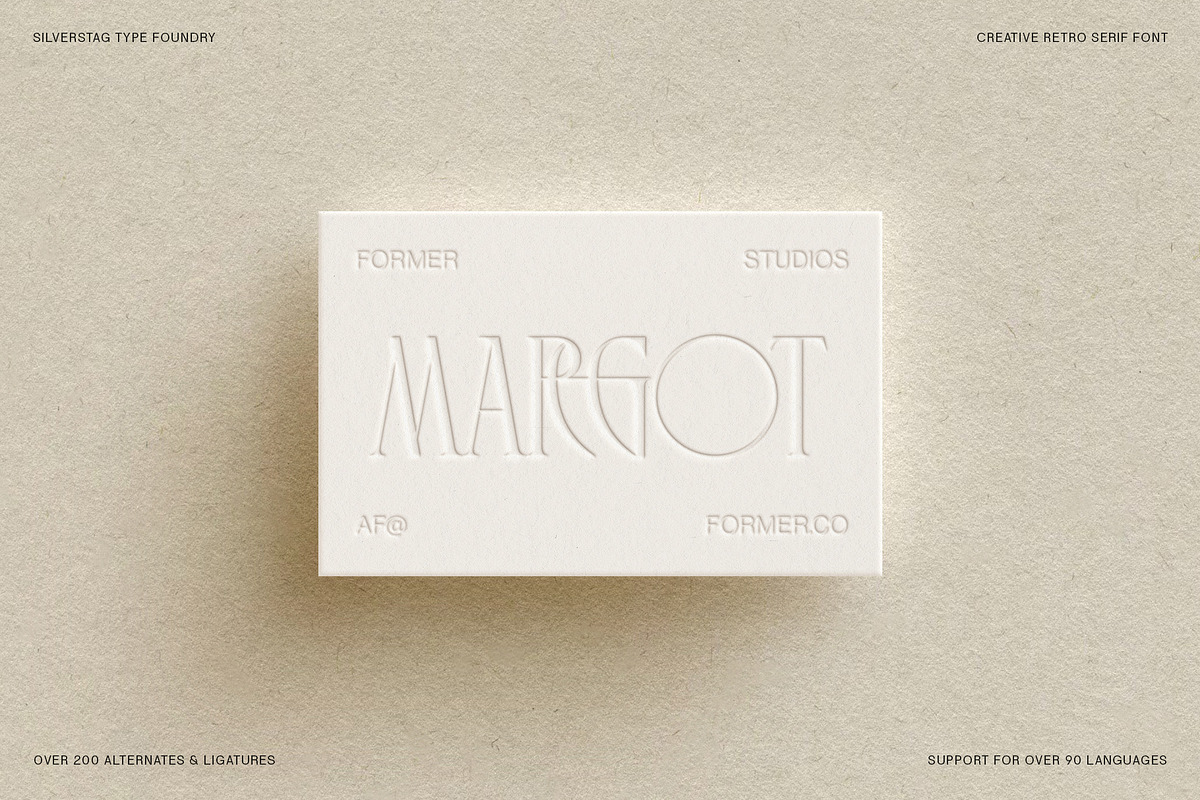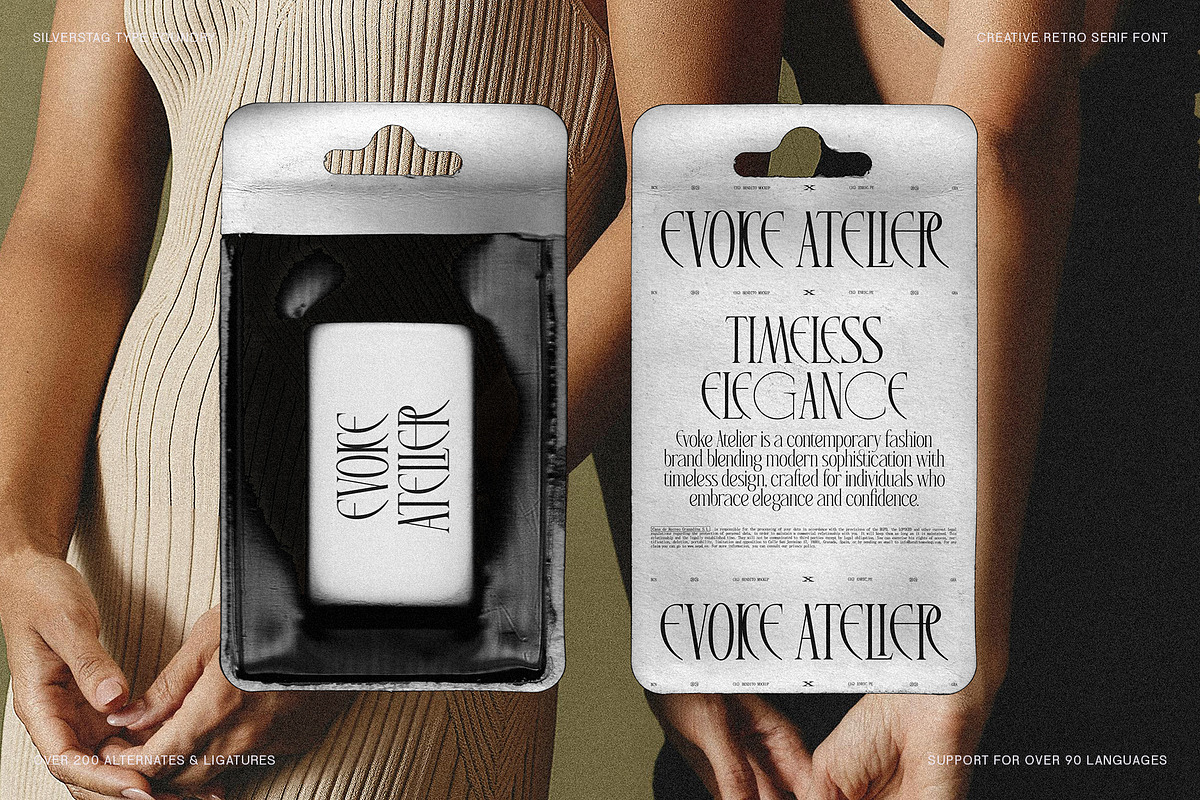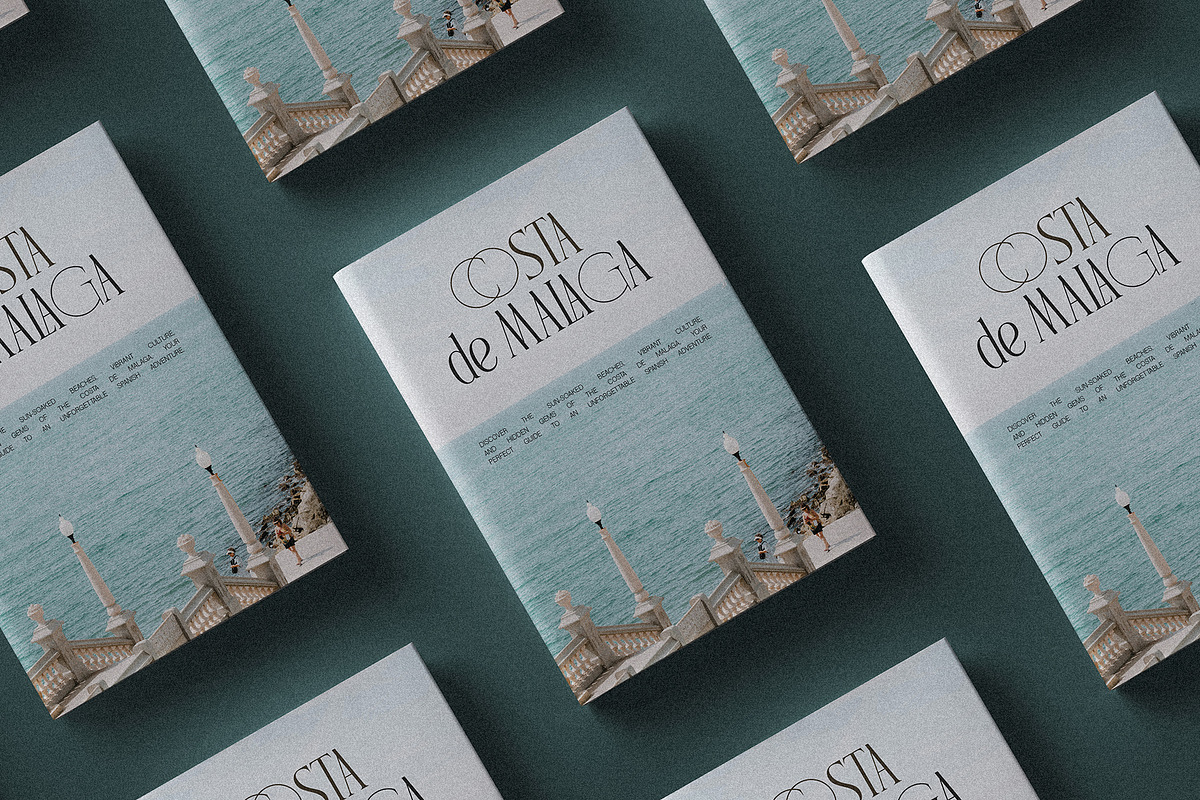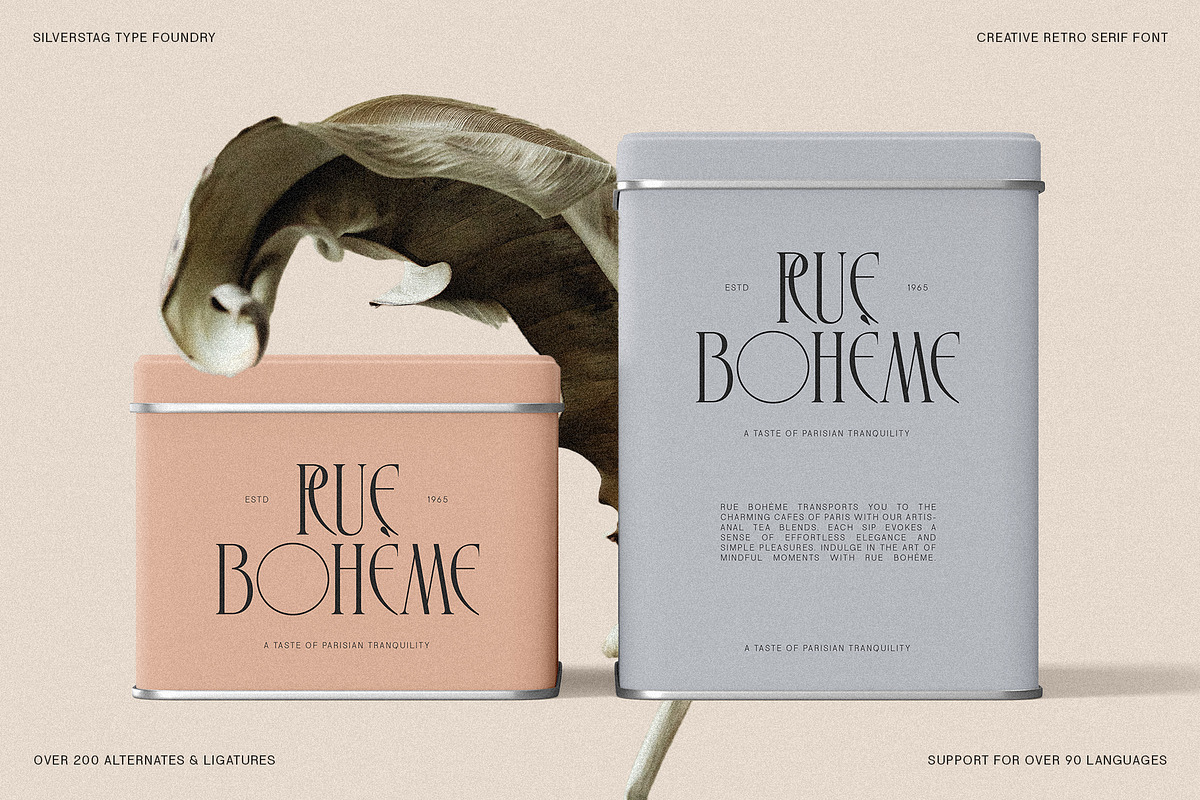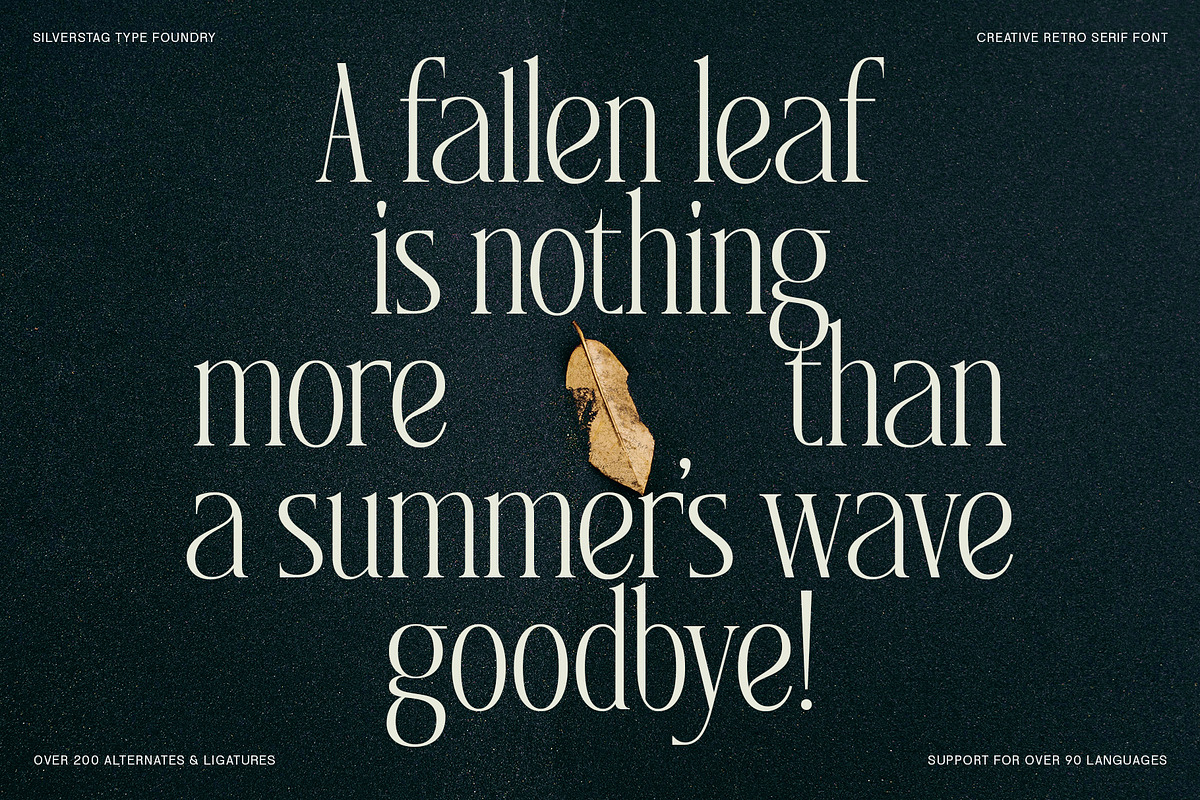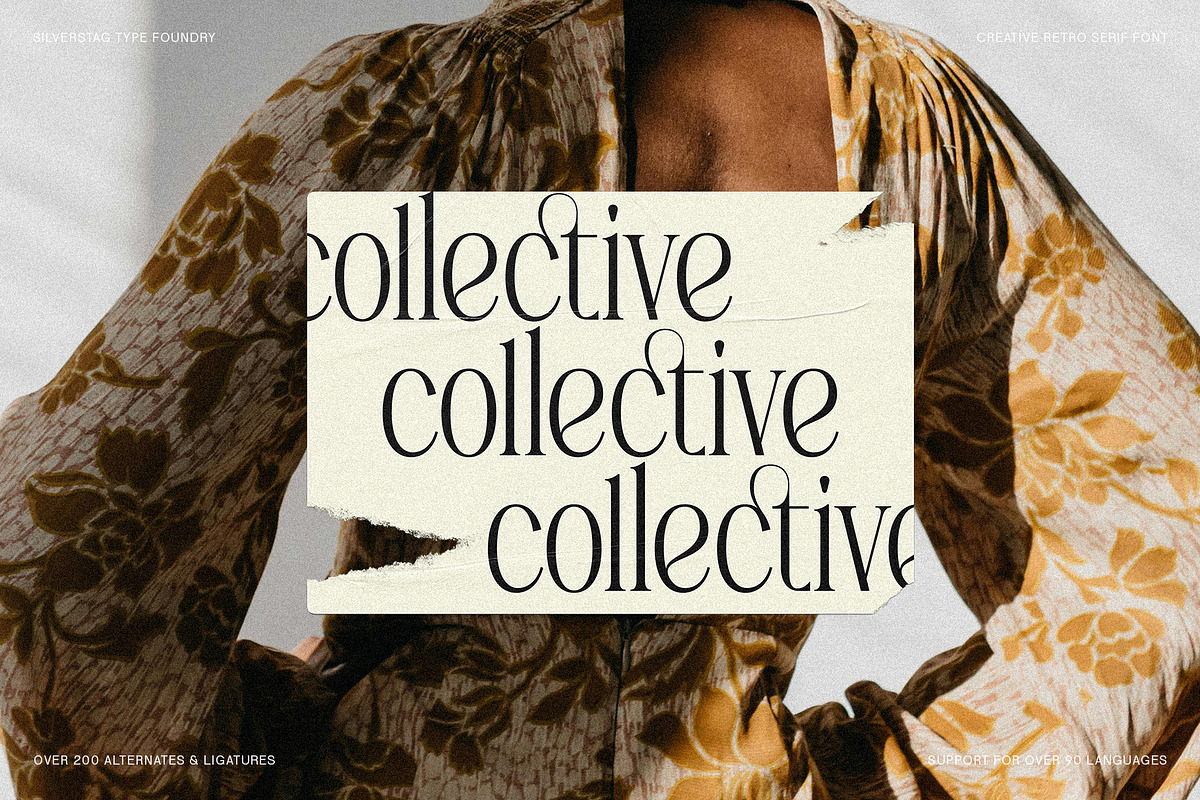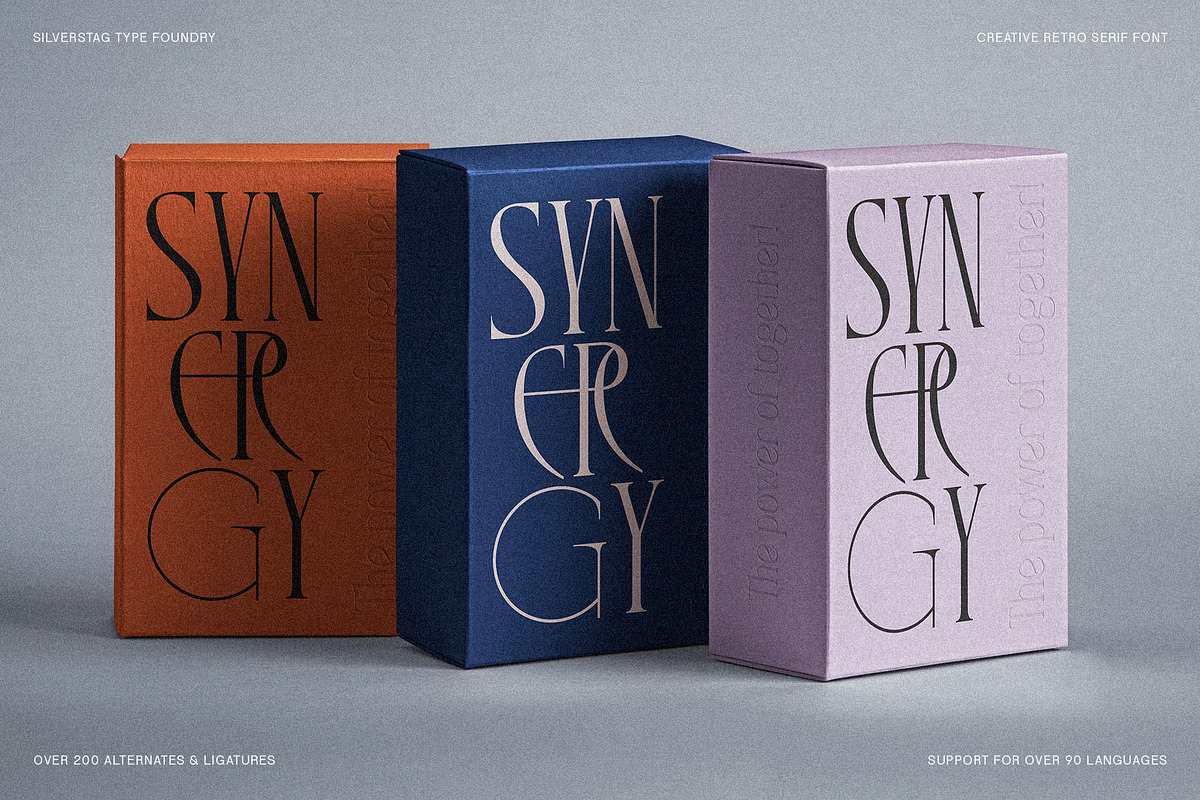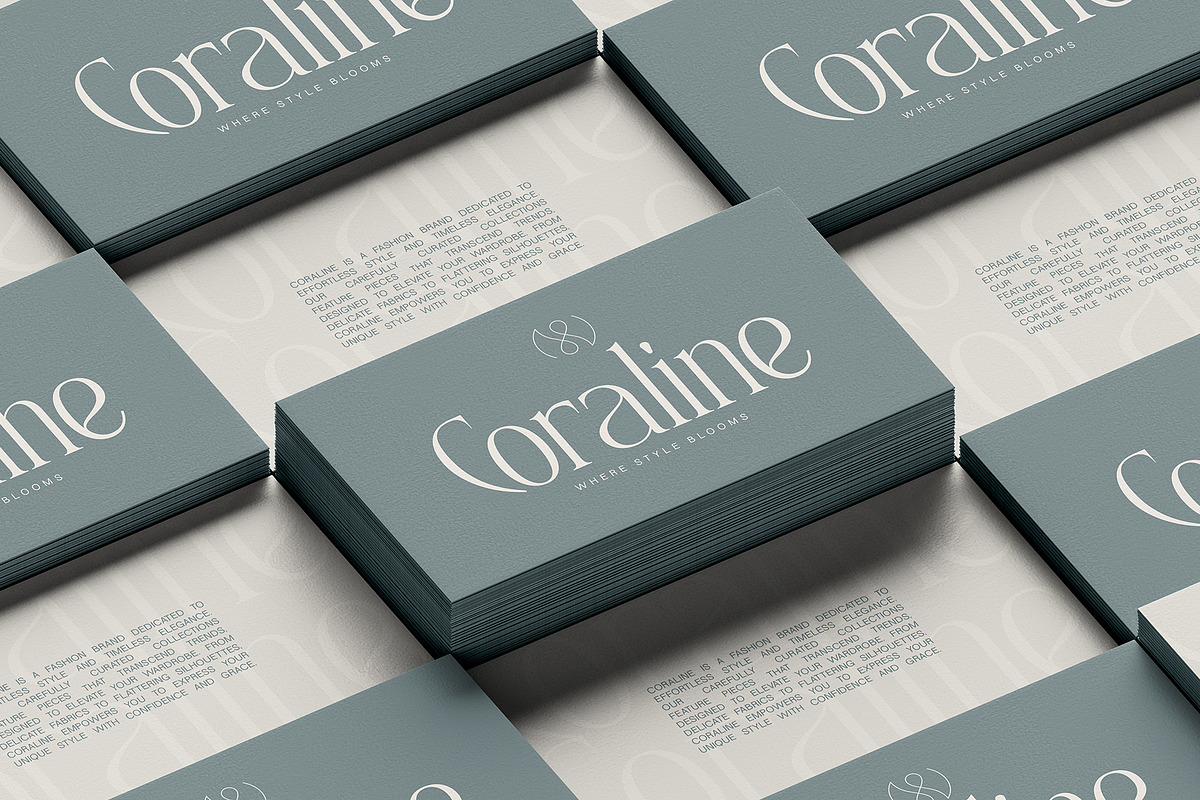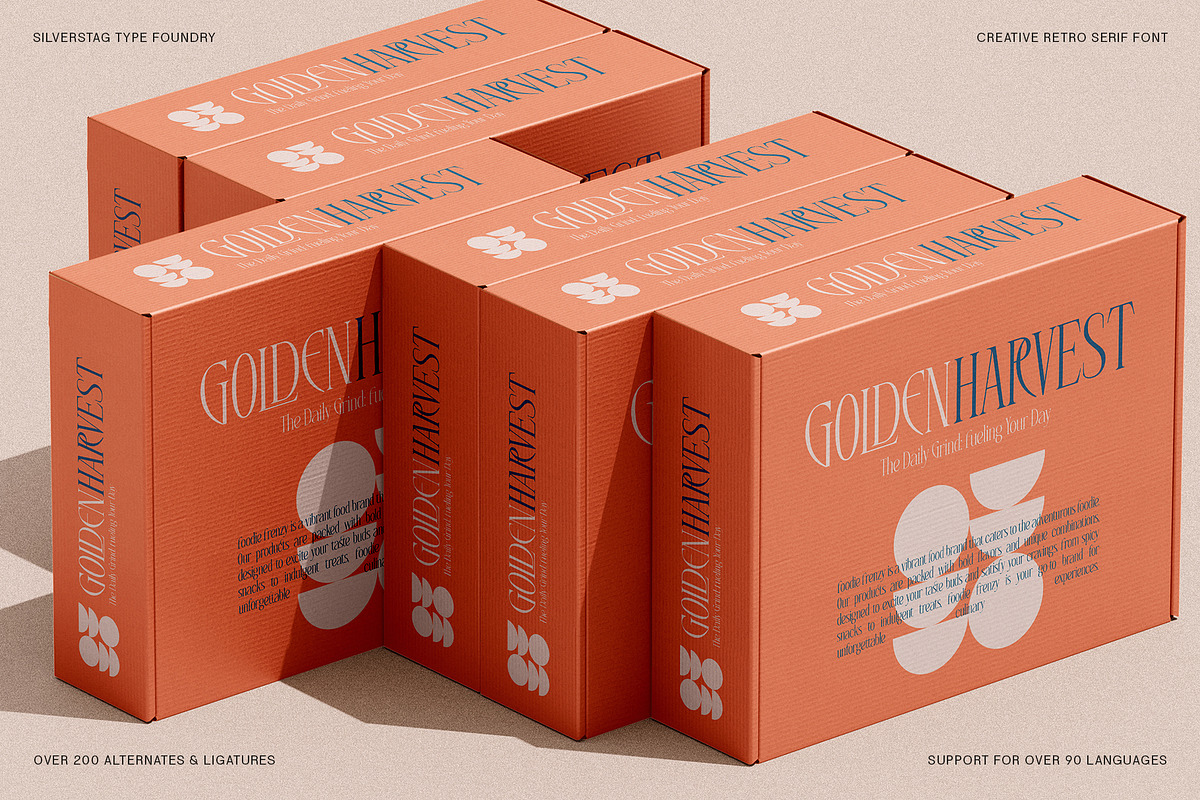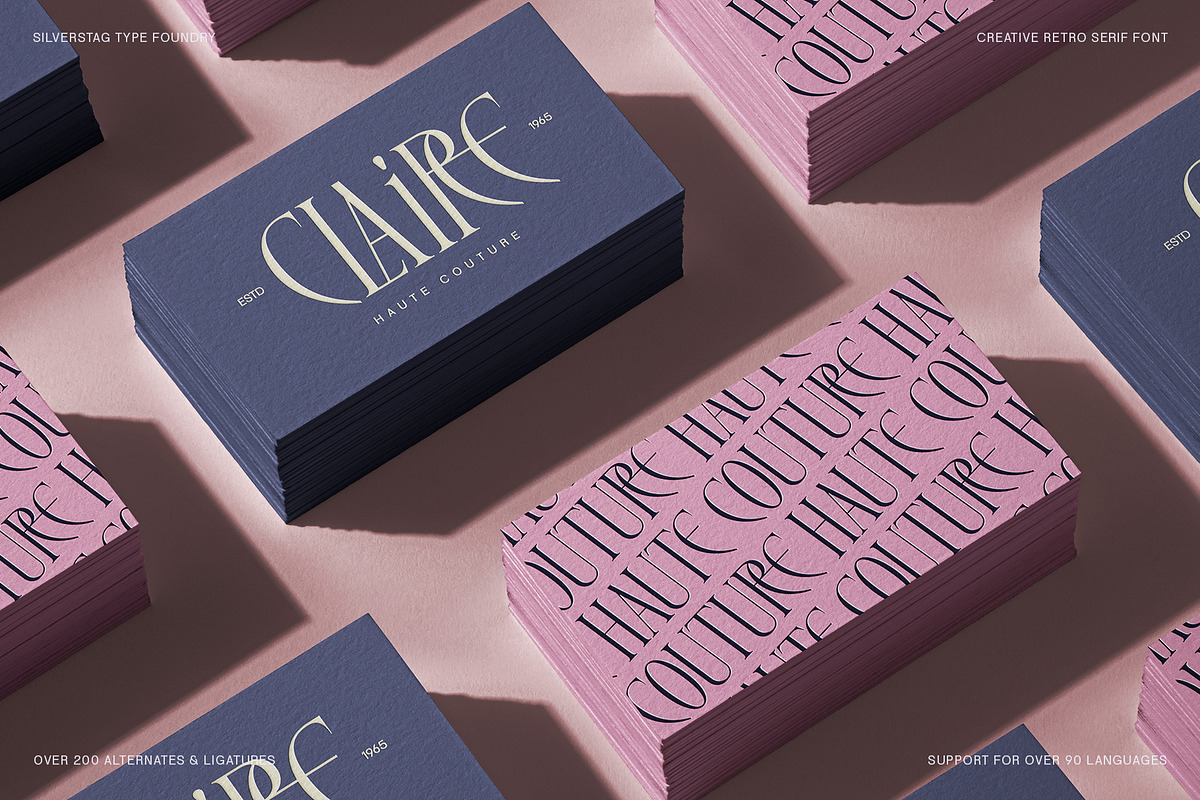
SLTF Rogue Rebellion - Ligature Font
SLTF Rogue Rebellion: Where Elegance Meets Rebellion
Unleash your creativity with SLTF Rogue Rebellion, an exquisite retro-inspired serif font designed for those who dare to stand out. This typeface combines timeless sophistication with a bold, rebellious edge, making it the perfect choice for projects that demand attention and elegance.
Crafted with meticulous detail, Rogue Rebellion features over 200 unique ligatures and chic, flowing lowercase letters, bringing unparalleled charm to your typography. With support for over 90 languages, this font is ready to make an impact on a global scale.
- Exquisite Ligatures: Over 200 expertly designed ligatures to elevate your typography with unique, custom touches.
- Retro Elegance: A perfect balance of vintage charm and modern style for truly timeless designs.
- Multilingual Versatility: Supports over 90 languages, ensuring your designs can connect with audiences worldwide.
- Chic Lowercase Letters: Refined and stylish lowercase forms to add grace and flow to your text.
SLTF Rogue Rebellion is your go-to font for luxury branding, high-end fashion editorials, artistic packaging, and boutique product designs. Its bold yet elegant style makes it ideal for event invitations, logo design, and social media graphics that demand a touch of retro flair and sophistication. Whether you’re designing for a modern fashion brand, a luxury cosmetics line, or a creative art project, Rogue Rebellion adapts effortlessly to your vision.
Why Choose SLTF Rogue Rebellion?
This font isn’t just a typeface—it’s a statement. Rogue Rebellion’s intricate ligatures and retro-inspired aesthetic bring personality and character to every project. Its versatility lets you seamlessly move between bold headlines, intricate branding, and delicate typographic compositions.
Whether you’re crafting a high-fashion campaign, designing a bespoke logo, or creating packaging that turns heads, SLTF Rogue Rebellion is the font that ensures your work stands out with elegance and individuality.
Dare to create. Dare to rebel. With Rogue Rebellion, the possibilities are endless.